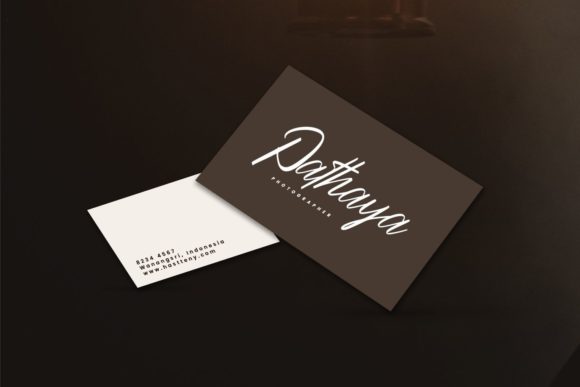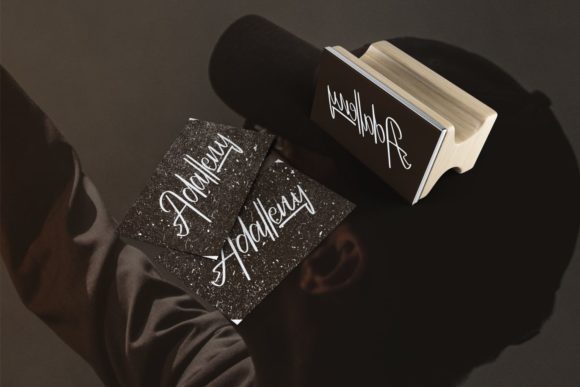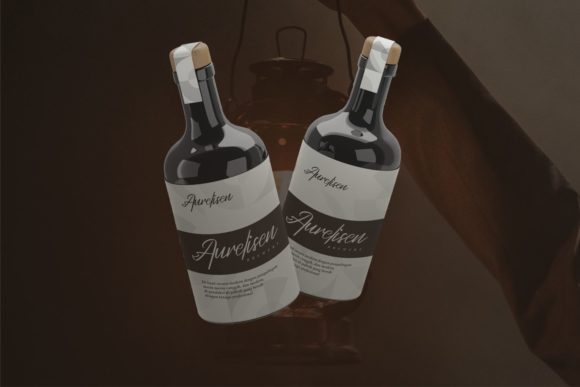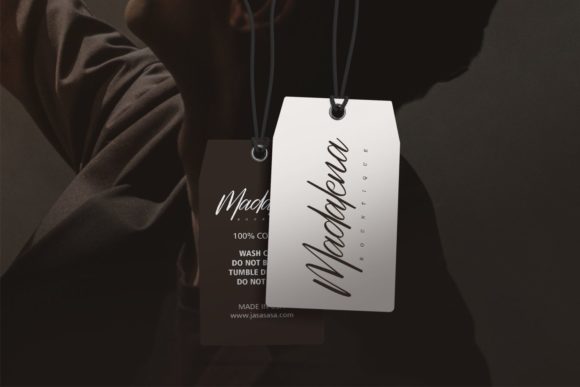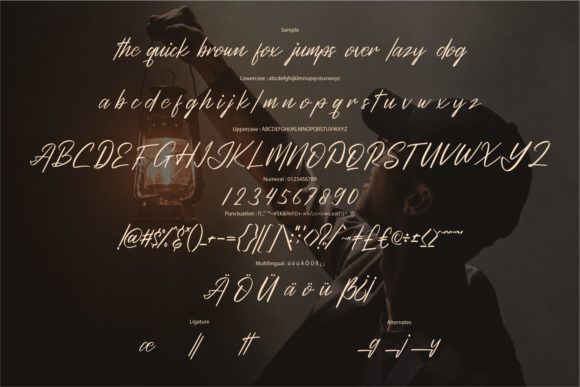
Introduction to Mathollog Font
Do you remember the moment when the perfect font finally comes together with your creative vision? It’s like the missing piece of a puzzle, elevating your project from good to great. For designers, finding that perfect font can be a game-changer. That’s where the elegant Mathollog Font comes in – a beautiful script font that will take your designs to the next level.
With its contemporary atmosphere and impeccable form, Mathollog Font is the perfect addition to any creative project. Its balanced and varied style ensures that it’s not too thin or too thick, making it a versatile design resource that can be used across various mediums, from print to digital designs with transparent backgrounds.
Key Features of Mathollog Font
- Unique, artistic design with transparent background, ideal for use in graphic design and digital art.
- Perfect for use in creative projects, such as posters, flyers, and digital graphics, where a unique and artistic font is desired.
Honest Review: Mathollog Font
I recently had the chance to work with the Mathollog Font, and I must say it’s been a great addition to my design resources. As a designer, I’m always on the lookout for high-quality fonts that can elevate my creative projects. The Mathollog Font delivers.
One of the standout features of this font is its versatility. It works well in a variety of applications, from headings to body text. The transparent background option is also a nice touch, allowing me to customize the font to fit my design needs.
- ✨ Clean and modern design
- ✨ Highly customizable
However, there are a few limitations to consider. The font may not be suitable for all design projects, particularly those that require a more traditional or formal look. Additionally, the font’s legibility can be affected by the size and spacing of the text.
- ⚠️ May not be suitable for all design projects
- ⚠️ Legibility can be affected by text size and spacing
Overall, I’m impressed with the Mathollog Font. It’s a great design resource that can add a touch of modernity to any creative project. Just be sure to use it wisely and consider the limitations.
Tips for Getting the Most Out of Mathollog Font
For the best results, use the Mathollog Font with a high contrast background to make the text stand out. You can also use the font in combination with other design resources, such as graphics and images, to create a unique and engaging design.
The Mathollog Font is perfect for use in a variety of creative projects, including presentations, social media graphics, and documents. You can also use the font for free download, making it a valuable resource for designers and non-designers alike.